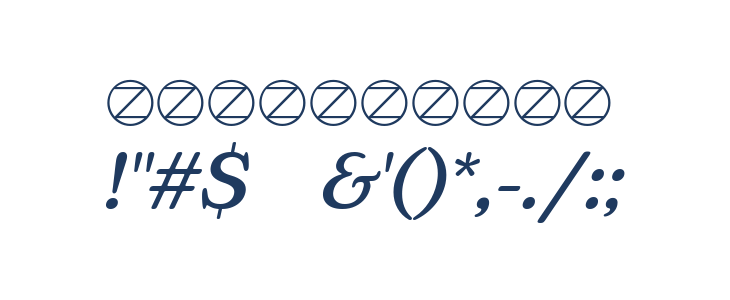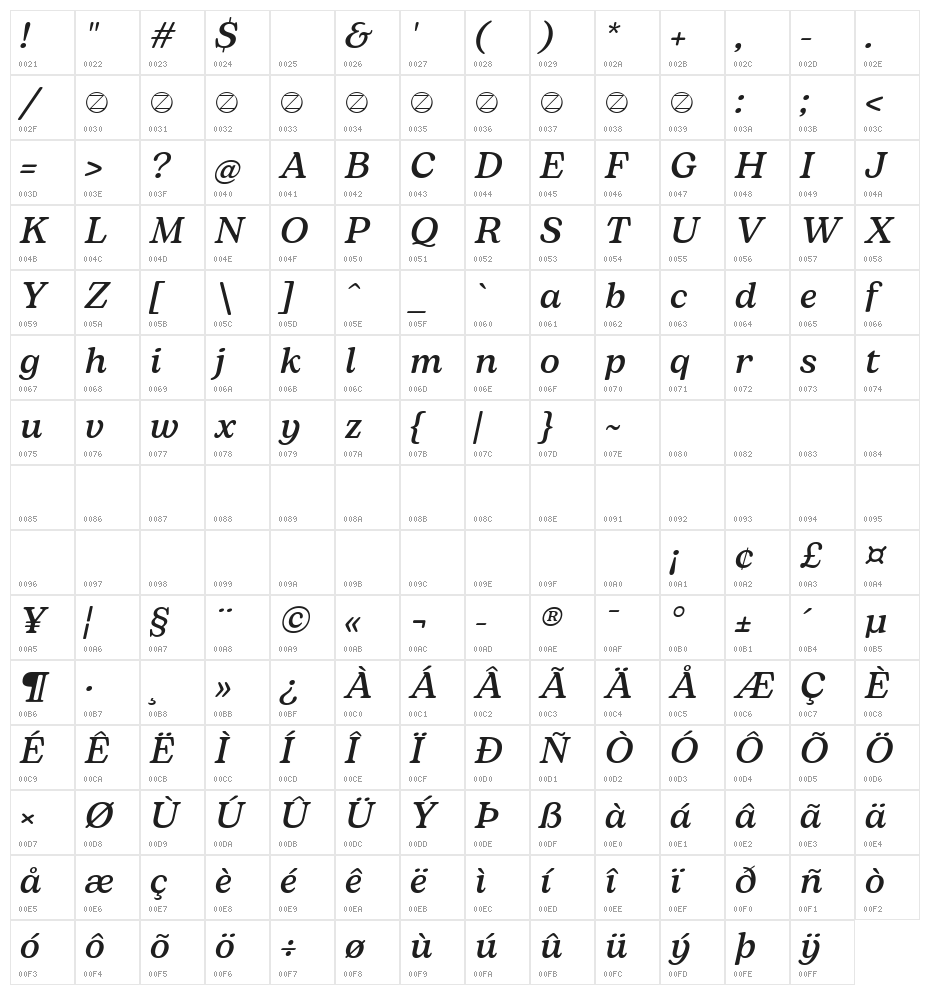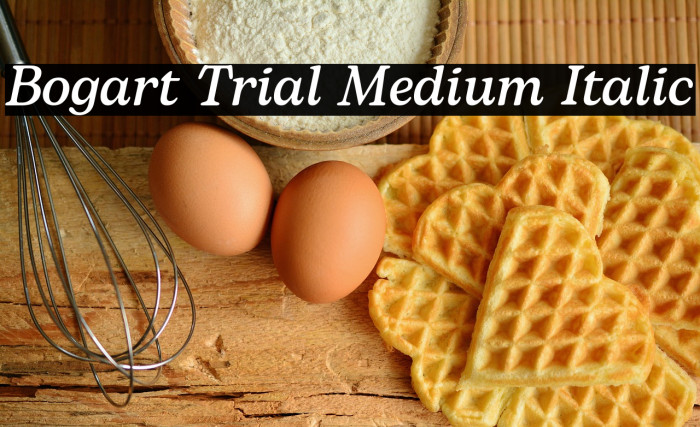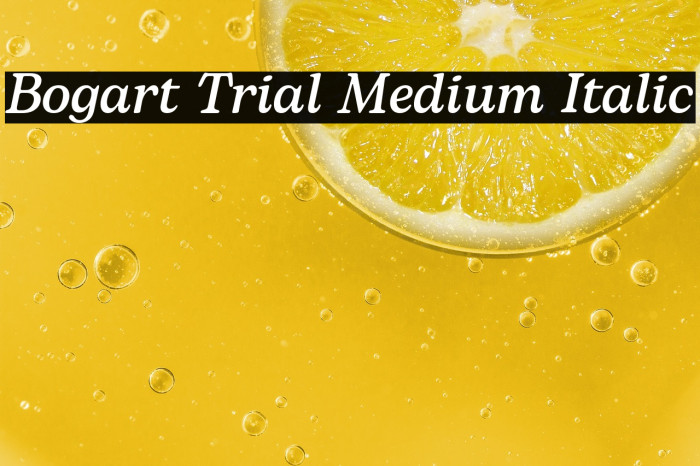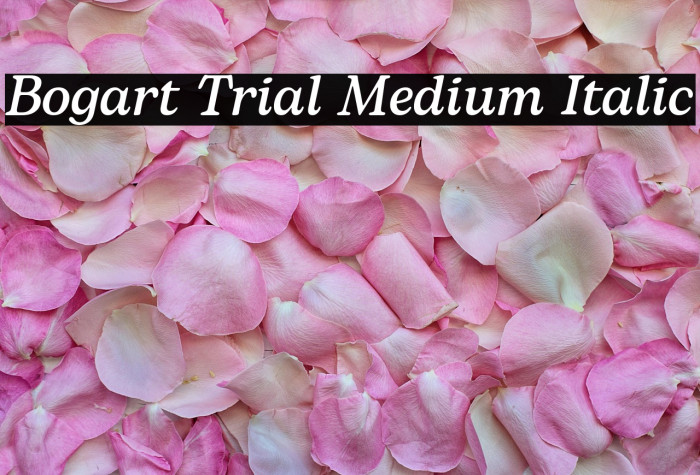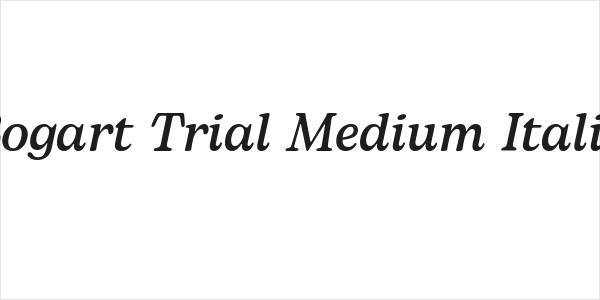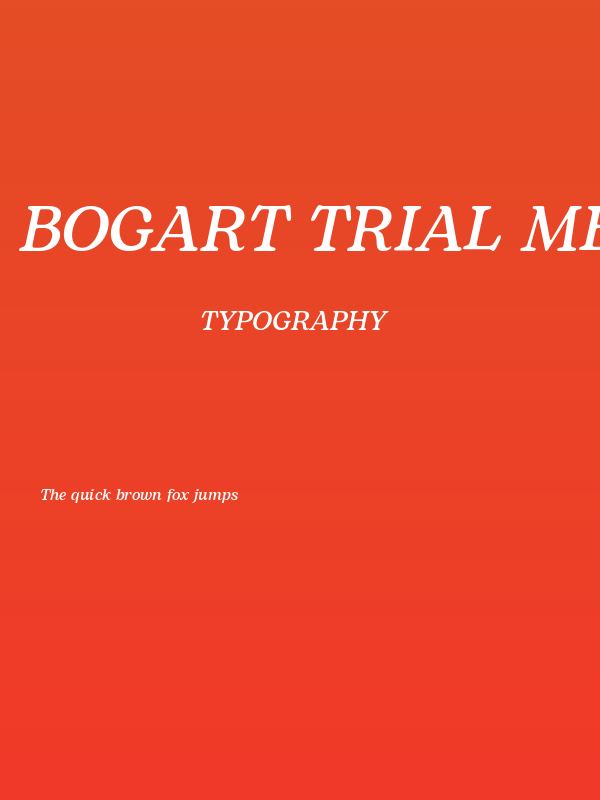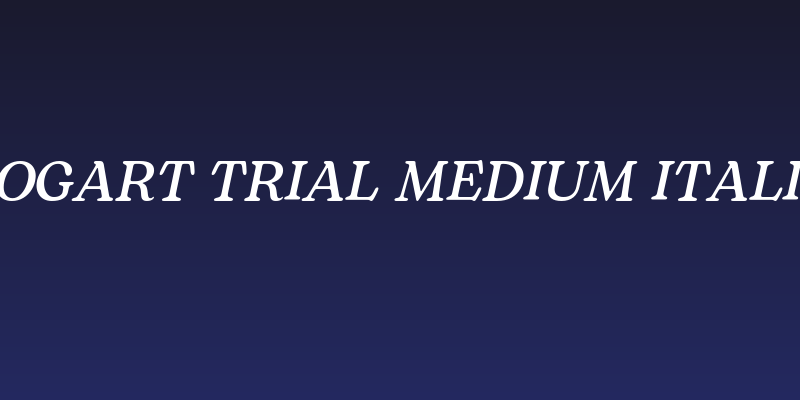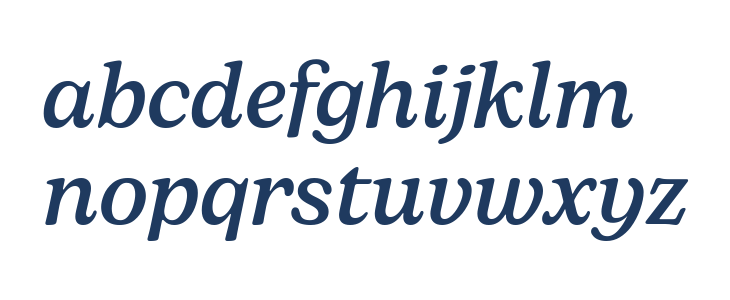
Bogart Trial Medium Italic Font
Bogart Trial Medium Italic Description
This font exudes a classic elegance with its medium weight and italic style, offering a refined and sophisticated appearance. The serif design provides a traditional feel, while the italic slant adds a touch of dynamism and fluidity. The characters are well-proportioned, with a moderate contrast between thick and thin strokes, enhancing readability while maintaining a stylish look. The spacing between characters is normal, ensuring clarity and legibility. This font is versatile, suitable for both formal and creative projects, making it a great choice for a variety of applications.
| Proposed Projects | Ideal for book covers, editorial design, invitations, and branding materials. |